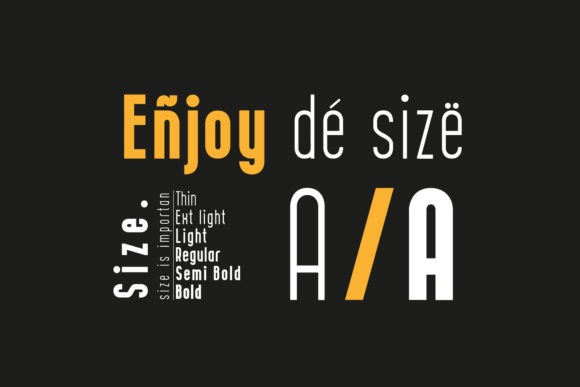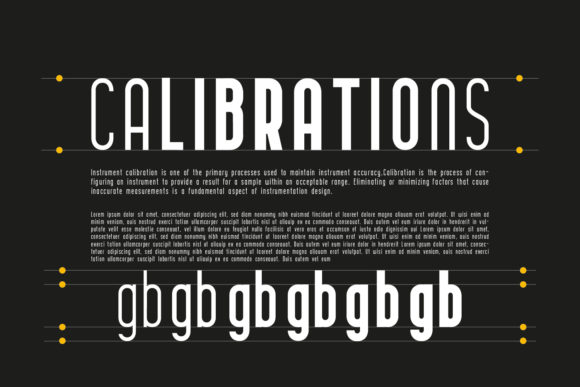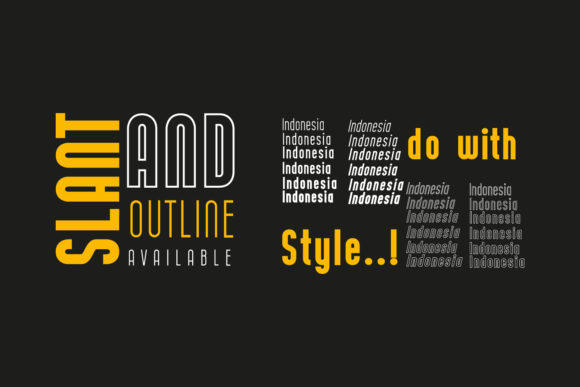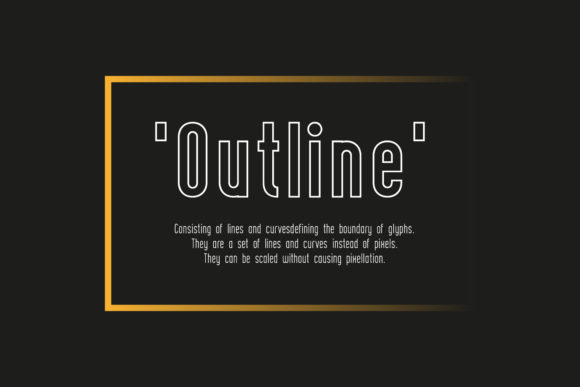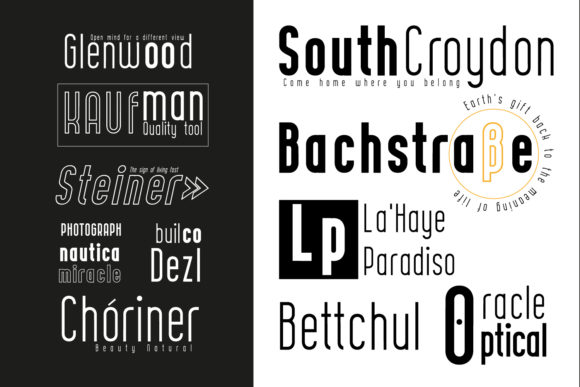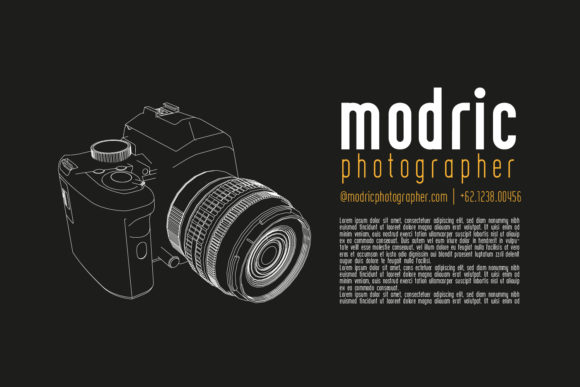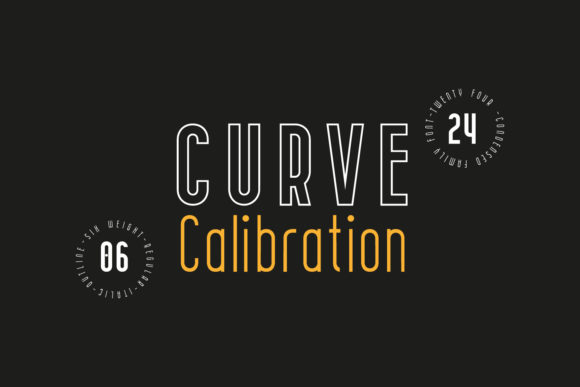
Introducing the Curve Calibration Family Font: A Universal Sans Serif for Modern Design
In the world of typography, a well-designed font can elevate a design project from good to great. For designers and crafters looking for a versatile and modern sans serif font, the Curve Calibration Family Font is an excellent choice. This universal font family boasts a minimalist style, geometric shapes, and a range of variations, making it perfect for large arrays of text and display purposes.
Key Features of the Curve Calibration Family Font
- Minimalist Style: The Curve Calibration font features a clean and minimalist design, characterized by simple strokes and a closed aperture. This design approach ensures that the font remains legible and uncluttered, even at smaller sizes.
- Geometric Shapes: The font’s geometric shapes give it a modern and sleek appearance, making it ideal for designs that require a contemporary look and feel.
- 16 Variations: The Curve Calibration Family Font comes in 16 variations, providing designers with a range of options to suit different design requirements. Whether you need a font for body text or display purposes, this font family has got you covered.
- Individually Developed Glyphs: Each glyph in the Curve Calibration font has been individually developed, ensuring that every character is optimized for use as a display font. This attention to detail makes the font perfect for headlines, titles, and other display purposes.
The Curve Calibration Family Font offers several benefits for designers and crafters, including:
- Versatility: With 16 variations to choose from, designers can use the Curve Calibration font for a wide range of projects, from brochures and websites to posters and social media graphics.
- Legibility: The font’s minimalist design and closed aperture ensure that it remains legible, even at smaller sizes, making it perfect for body text and other applications where readability is crucial.
- Modern Aesthetic: The font’s geometric shapes and clean lines give it a modern aesthetic that is sure to appeal to designers who want to create contemporary and stylish designs.
- Time-Saving: With a single font family that can be used for multiple projects, designers can save time and effort, rather than searching for and downloading multiple fonts.
Using the Curve Calibration Family Font in Your Designs
The Curve Calibration Family Font is easy to use and can be incorporated into a variety of design projects. Here are a few ideas to get you started:
- Headlines and Titles: Use the font’s display variations to create eye-catching headlines and titles that are sure to grab attention.
- Body Text: Choose one of the font’s more subtle variations for body text, ensuring that your content is legible and easy to read.
- Branding and Identity: Use the Curve Calibration font to create a consistent brand identity across multiple platforms, including business cards, letterheads, and social media graphics.
- Web Design: The font’s clean lines and geometric shapes make it perfect for web design, ensuring that your website looks modern and stylish.
The Curve Calibration Family Font is a versatile and modern sans serif font that is perfect for designers and crafters looking for a reliable and stylish font solution. With its minimalist design, geometric shapes, and range of variations, this font family is sure to become a go-to choice for a wide range of design projects. Whether you’re creating a website, brochure, or social media graphic, the Curve Calibration Family Font is an excellent choice.